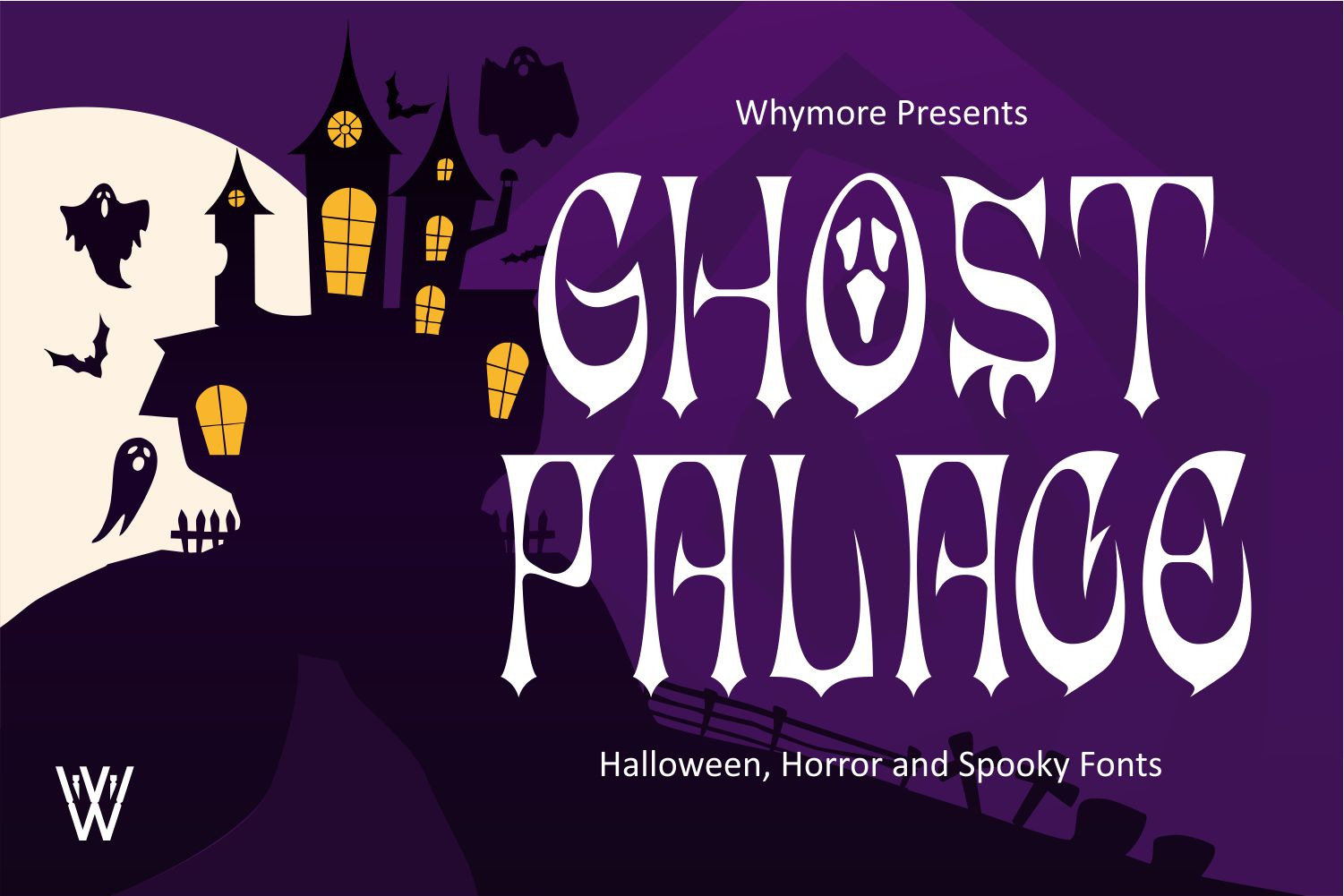
Ghost Palace – Halloween Font
The Ghost Palace Font is a hauntingly beautiful typeface that captures the essence of Halloween with its spooky yet elegant design. Inspired by the mysteries of the night and the allure of the supernatural, this font features ghostly letterforms, intricate details, and a sense of otherworldly charm. Whether you’re designing Halloween party invitations, spooky signage, or eerie branding materials, the Ghost Palace Font adds a touch of macabre elegance that captivates the viewer. Its versatility and spooky allure make it perfect for a wide range of Halloween-themed designs, ensuring your creations stand out with a hauntingly beautiful presence.